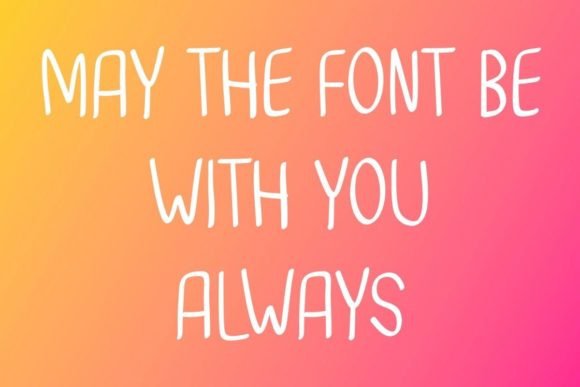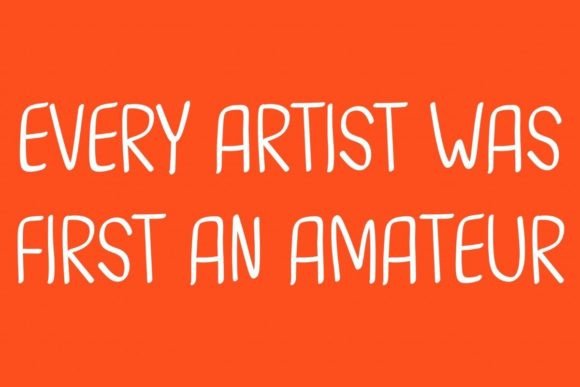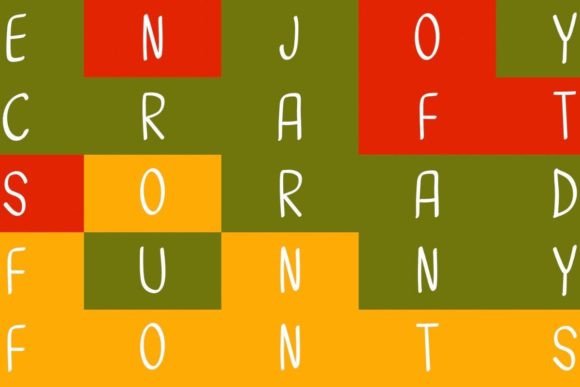
Brasic Font: Elevate Your Designs with a Whimsical and Fun Handwritten Style
Are you a designer, crafter, or digital artist looking for a unique and playful font to add a personal touch to your creations? Look no further than the Brasic Font! This charming handwritten font is perfect for a variety of projects, from crafting and digital designing to presentations and greeting card making.
What is Brasic Font?
Brasic Font is a whimsical and fun handwritten font that is sure to capture the hearts of designers and crafters alike. Its playful and carefree style makes it an ideal choice for projects that require a personal and creative touch. Whether you’re looking to add a dash of personality to your digital designs, craft a unique handmade card, or create a visually appealing presentation, Brasic Font is the perfect choice.
Key Features of Brasic Font
- Whimsical and Fun: Brasic Font boasts a playful and carefree style that is sure to add a touch of personality to your designs.
- Handwritten Style: This font features a beautiful handwritten style that is perfect for creating unique and personalized designs.
- Versatile: Brasic Font can be used for a variety of projects, including crafting, digital designing, presentations, and greeting card making.
Uses of Brasic Font
Brasic Font is a versatile font that can be used for a wide range of projects, including:
- Crafting: Add a personal touch to your handmade crafts, such as scrapbooking, journaling, and card making.
- Digital Designing: Use Brasic Font to create visually appealing digital designs, such as social media graphics, blog posts, and email newsletters.
- Presentations: Add a touch of personality to your presentations and make them more engaging and memorable.
- Greeting Card Making: Create unique and personalized greeting cards for special occasions, such as birthdays, weddings, and holidays.
Benefits of Using Brasic Font
Using Brasic Font in your designs offers several benefits, including:
- Unique and Personalized Designs: Brasic Font allows you to create unique and personalized designs that stand out from the crowd.
- Time-Saving: This font is easy to use and saves you time and effort in creating visually appealing designs.
- Consistency: Brasic Font ensures consistency in your designs, making them look professional and cohesive.
In conclusion, Brasic Font is a wonderful addition to any designer’s or crafter’s toolkit. Its whimsical and fun handwritten style makes it perfect for a variety of projects, from crafting and digital designing to presentations and greeting card making. With its versatility, ease of use, and free availability, Brasic Font is sure to elevate your designs to the next level. So why wait? Download Brasic Font today and start creating unique and personalized designs that capture the hearts of your audience!